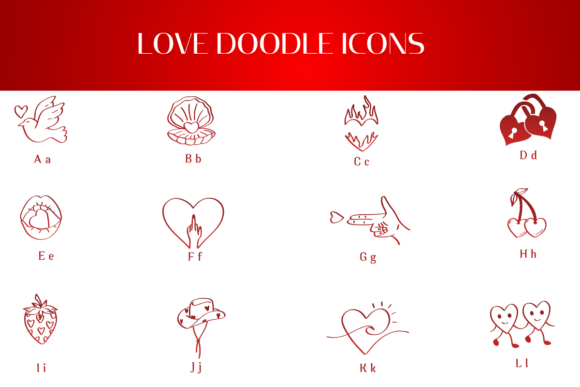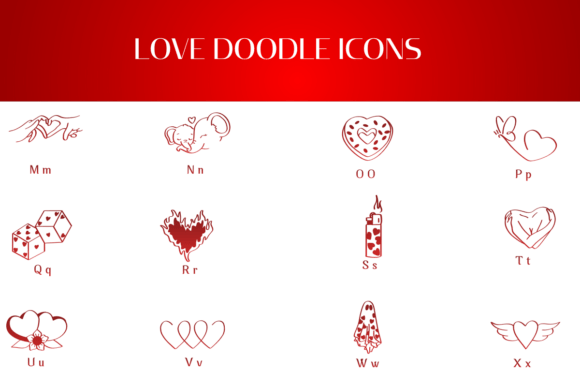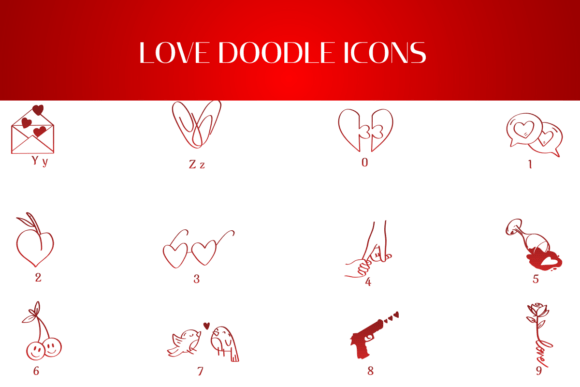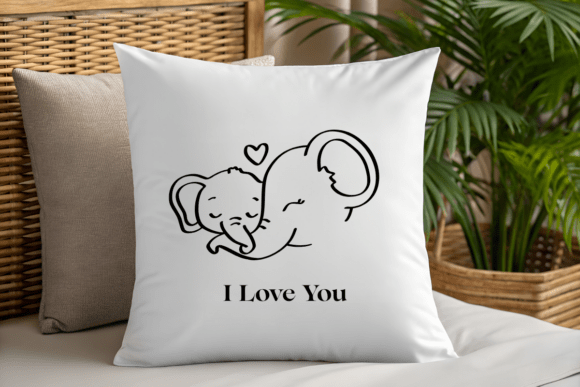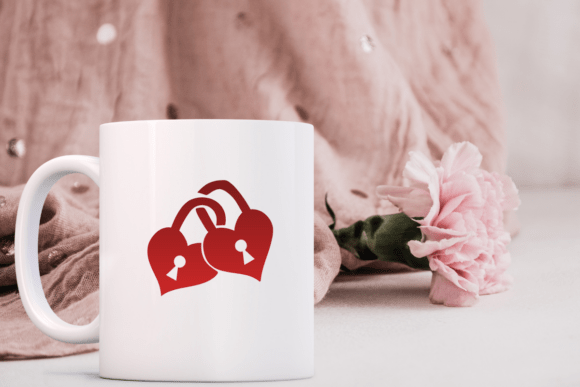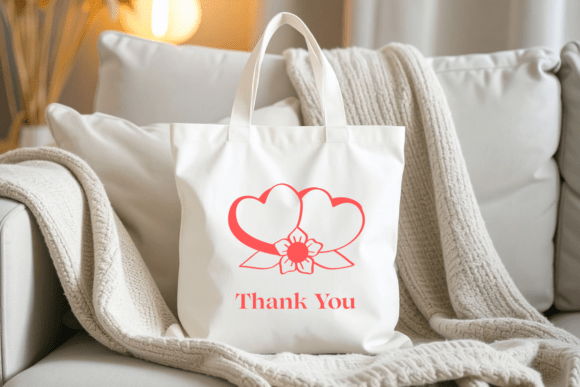
Introduction to Love Doodle Icons Font
Add a playful and affectionate spark to your projects with Love Doodle Icons, a delightful dingbats font filled with hand-drawn charm.
This typeface replaces traditional letters with a wide variety of romantic and whimsical symbols, including doodle hearts, cute characters, and Valentine-themed icons The Love Doodle font is a โdesignerโs shortcutโ to creating instant illustrations, making it the perfect font for scrapbooking, kid-friendly designs, and quirky social media graphics.
Key Features of Love Doodle Icons Font